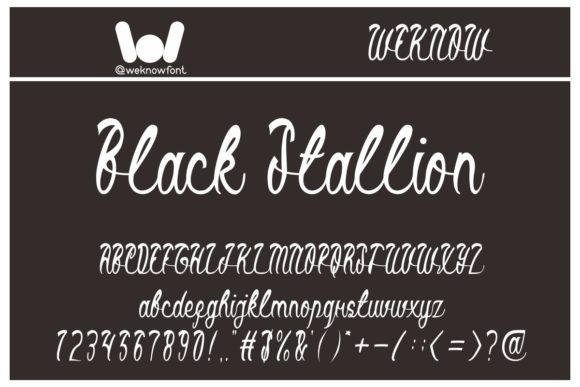
The Magic of Black Stallion Font: A Designer’s Delight
I’ll never forget the time I was working on a project for a luxury brand, and I just couldn’t find the right font to match their elegant vibe. I scrolled through page after page of Google Fonts, but nothing seemed quite right. That’s when I stumbled upon the Black Stallion font. Its flowing, handwritten curves immediately caught my eye, and I knew I had found the perfect fit. In this article, I’ll share my love for this beautiful font, its features, and how to make the most of it in your designs.
An Honest Review of Black Stallion Font
So, what makes Black Stallion font so special? Let’s dive into the good stuff and a few quirks I’ve discovered.
- ✨ Elegant and Timeless Style: Black Stallion has an incredibly distinct and timeless style that adds a touch of sophistication to any project.
- ✅ Versatility: This font is perfect for a wide range of projects, from luxury branding to wedding invitations and more.
- 💫 Flowing Handwritten Curves: The font’s flowing curves make it feel elegant and refined, perfect for designs that need a personal touch.
While Black Stallion font is amazing, there are a few things to keep in mind:
- 🤔 Legibility at Small Sizes: Like many script fonts, Black Stallion can be a bit tricky to read at very small sizes. It’s best used at larger sizes where its elegance can shine.
- ⚠️ Pairing with Other Fonts: Because of its strong personality, Black Stallion can be a bit challenging to pair with other fonts. You’ll want to choose complementary fonts that don’t compete with its elegance.
The Backstory of Black Stallion Font
While the origins of Black Stallion font might be shrouded in mystery, it’s easy to imagine a designer inspired by classic horse breeds and the elegance of the American West. The font’s creator likely wanted to capture the essence of freedom and beauty in a typeface that’s both memorable and stylish.
| Font Name | Black Stallion Font |
| Author | weknow |
Q: What type of projects is Black Stallion font best suited for?
A: Black Stallion font is perfect for luxury branding, wedding invitations, and any project that needs an elegant, timeless touch.
Q: Is Black Stallion font difficult to read?
A: Like many script fonts, Black Stallion can be challenging to read at very small sizes. It’s best used at larger sizes where its elegance can shine.